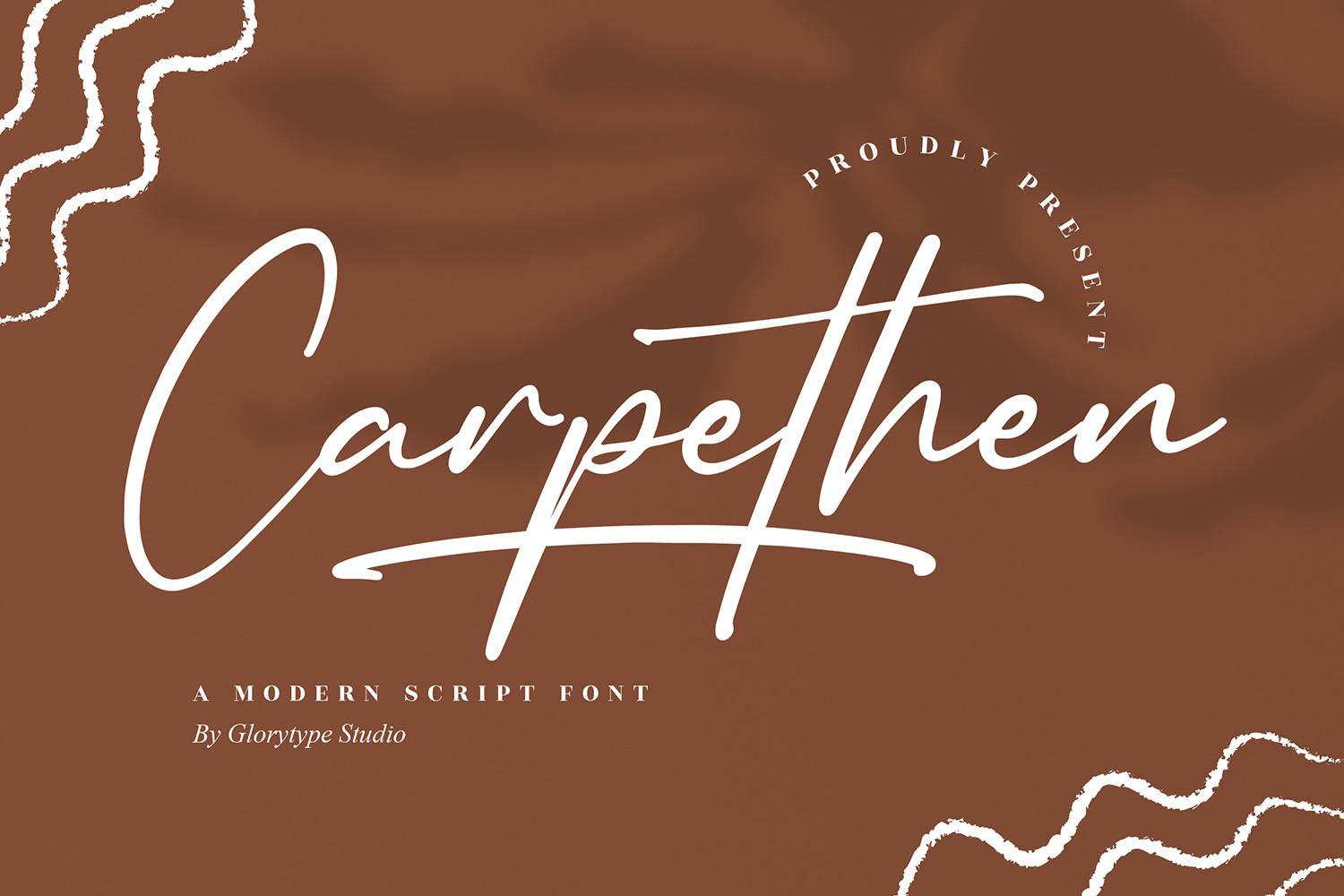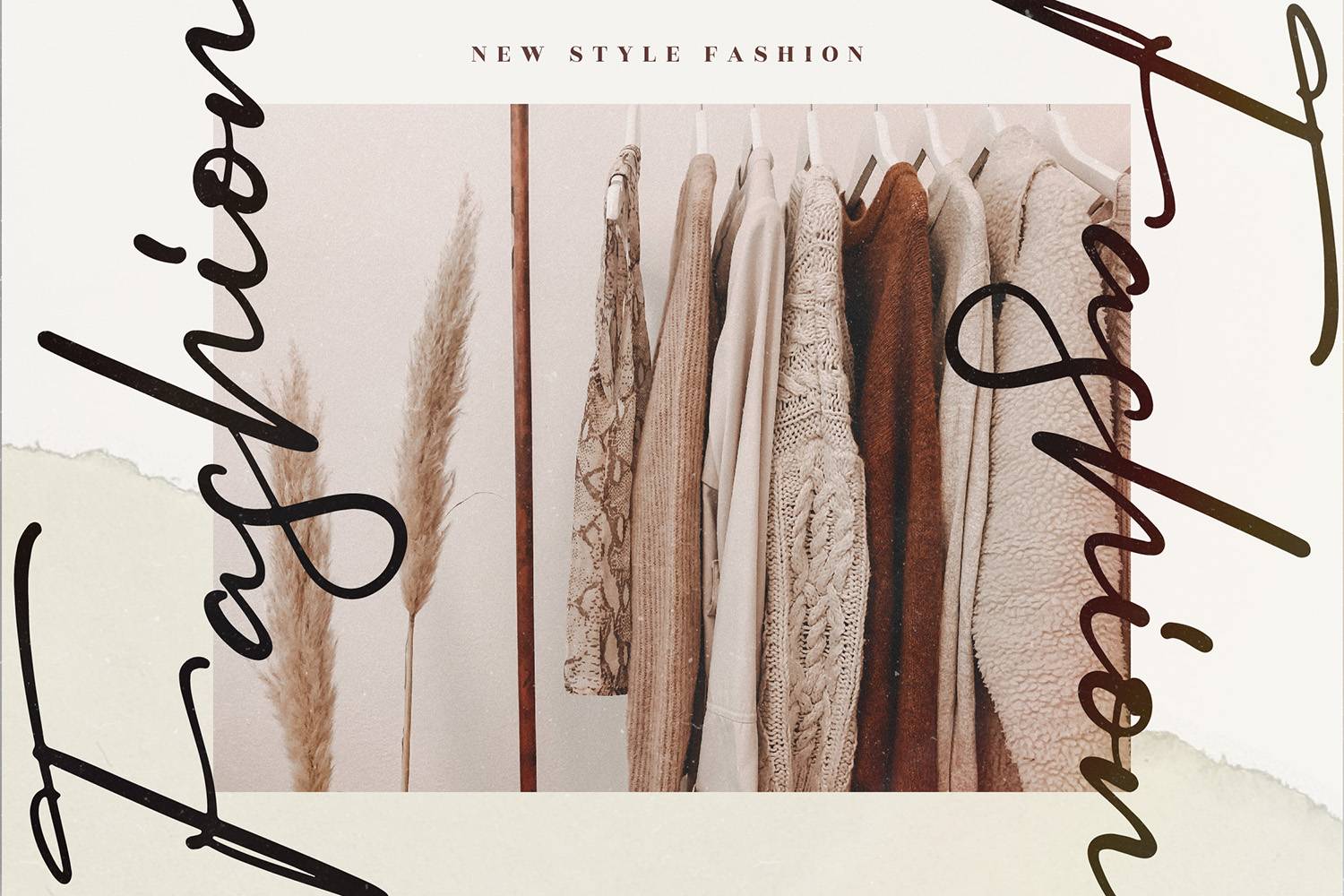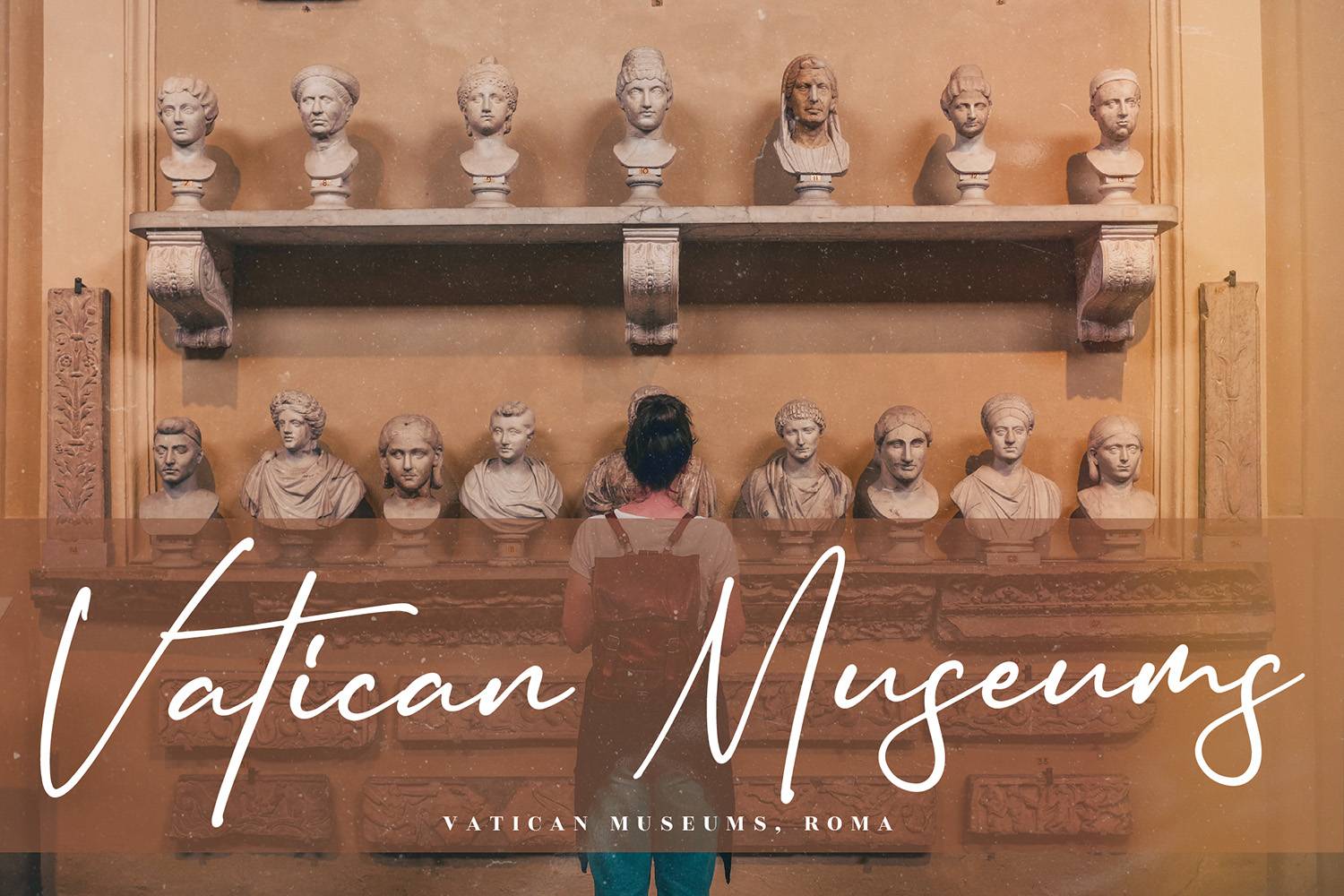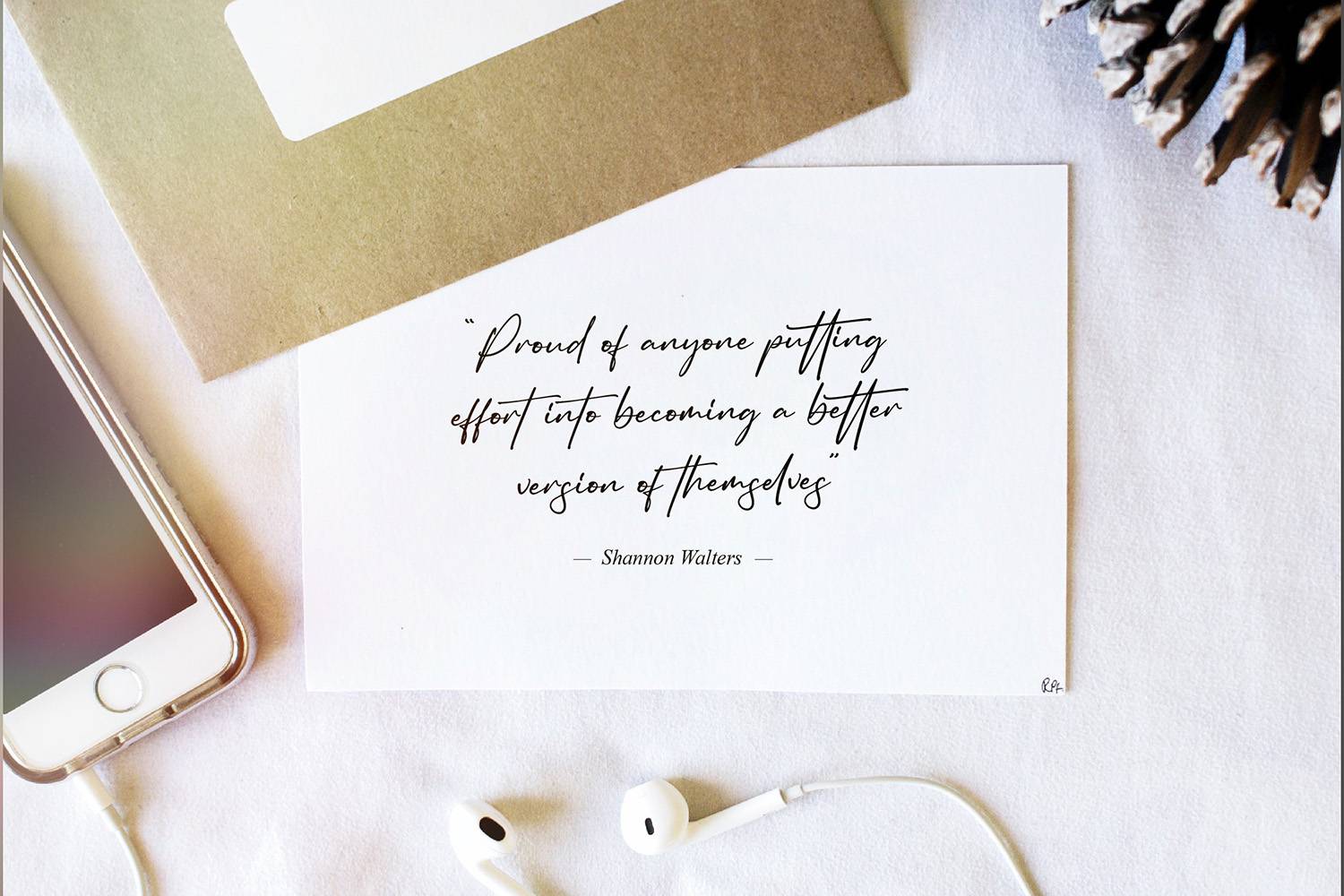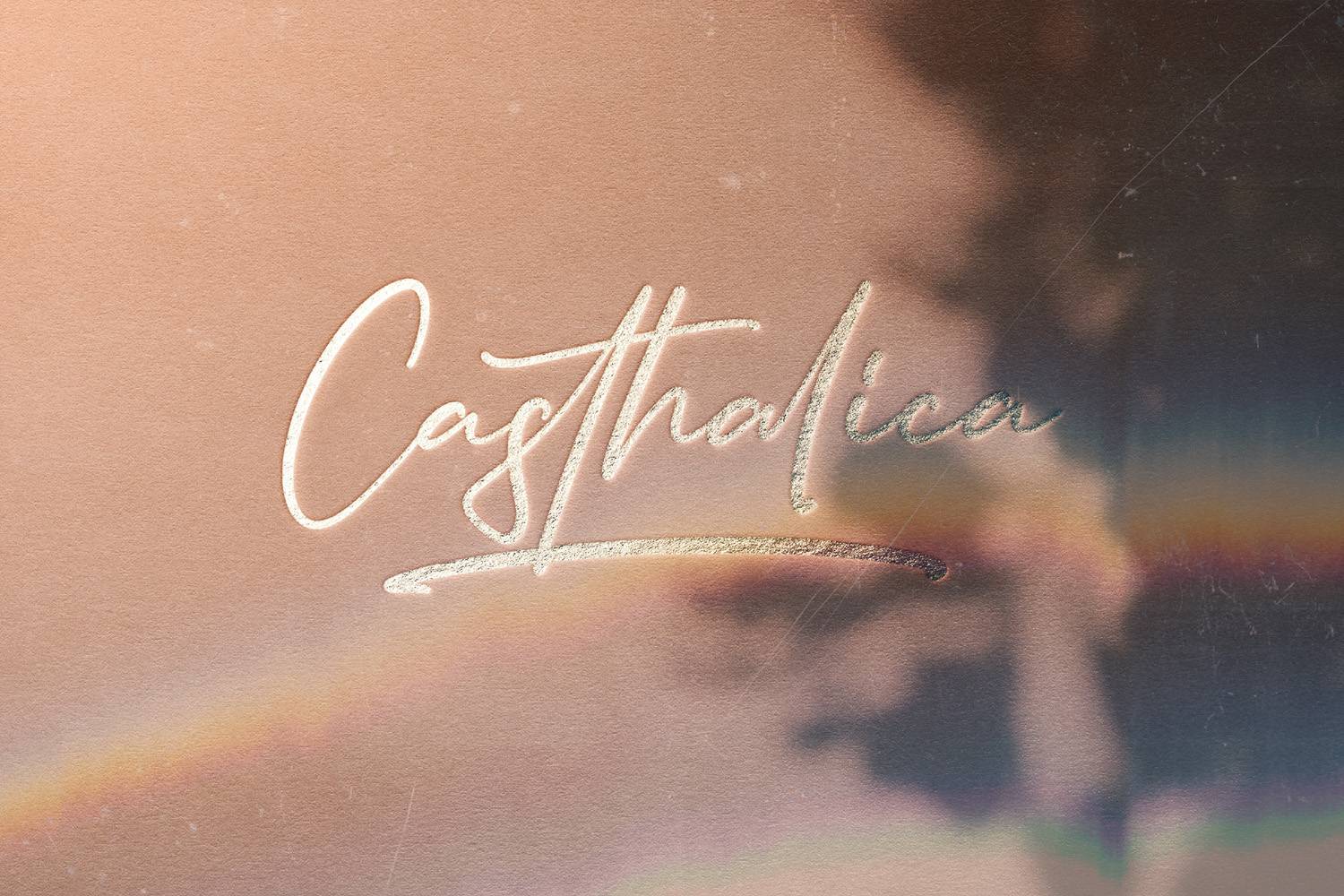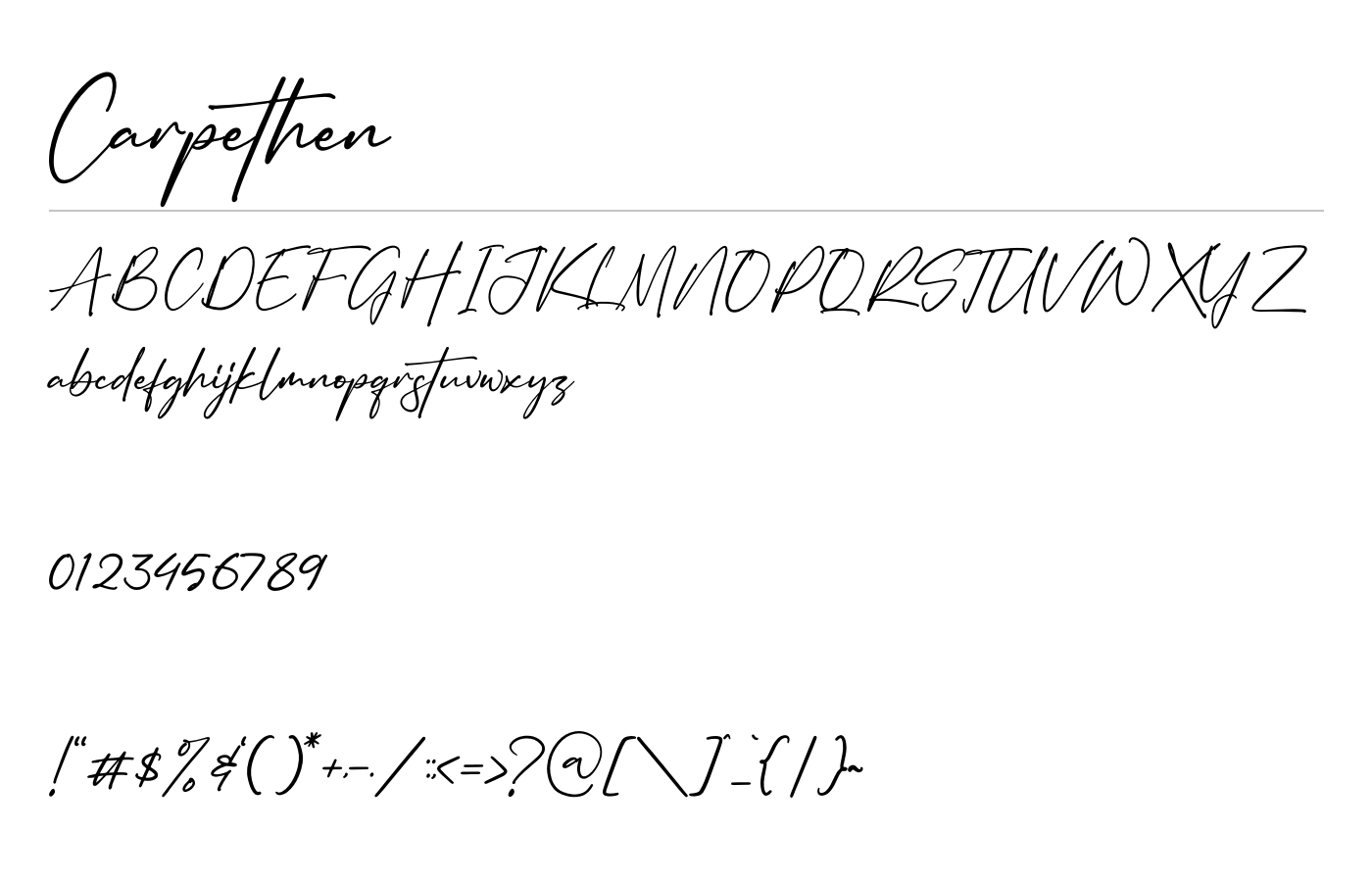
Carpethen is a delicate, modern script font with a natural, hand-written feel. It features slender, flowing strokes that create an elegant and airy appearance, making it ideal for personal branding, wedding invitations, and stylish editorial designs. Its graceful yet casual style conveys warmth and sophistication, perfect for projects seeking a contemporary and approachable touch.
Carpethen Font
About Carpethen Font